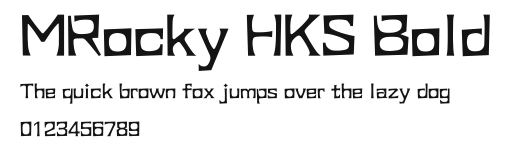
• Font Name: MRocky HKS Bold
• Full Font Name: MRocky HKS Bold
About MRocky HKS Bold.ttf
MRocky HKS Bold.ttf is a modern, elegant sans-serif font designed for ultimate readability and visual harmony. Perfect for branding, headlines, web design, and print materials.